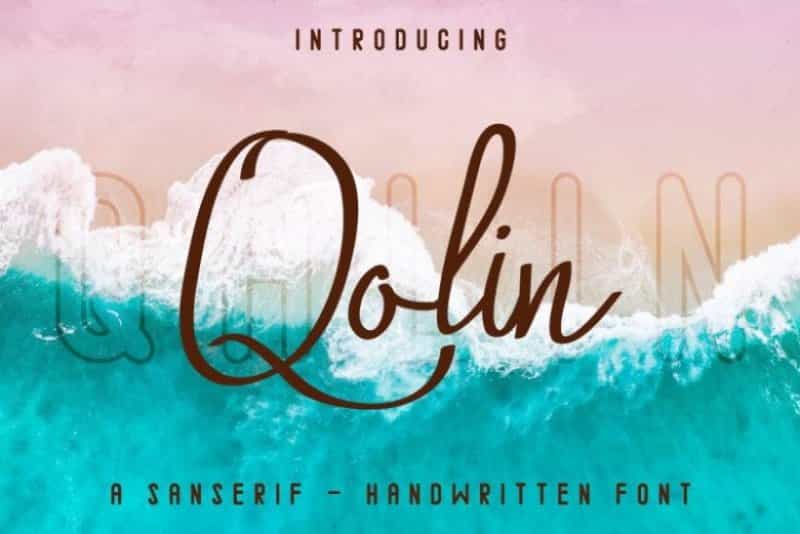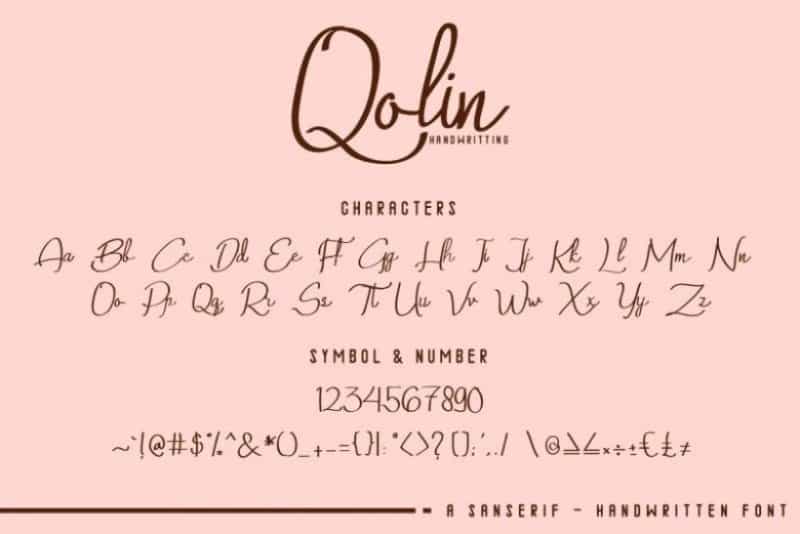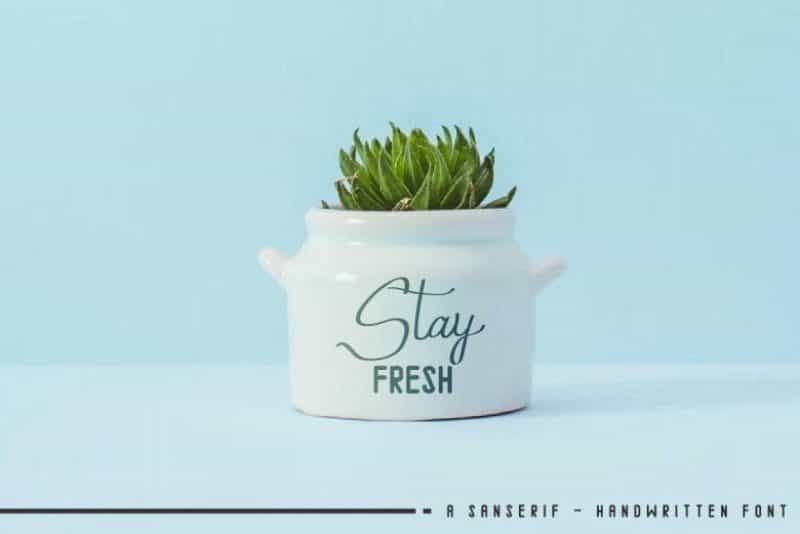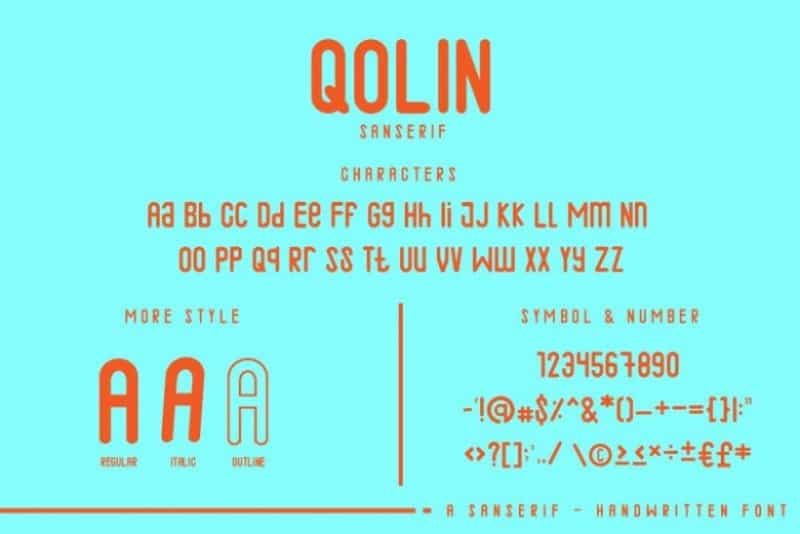
Discover Qalin Font Duo, part of the Sans Serif Handwritten collection—a versatile and unique font perfect for adding a personal touch to your projects. Download it for free and enjoy crafting designs with style, from invitations to social media posts. This font is available exclusively for personal use, giving you the freedom to create without limits. Unlock your creativity with Qalin Font Duo today!
Hi Everyone!Introducing our newest font : Qalin, I’m here to help you. This is a combination font : Sans and Handwritting script. It has a new modern script handwriting feminine signature style font. with the unique, beautiful, natural and elegant glyph. It will be great for branding, logo, stationery, business card, signage, flyer, brochure etc.